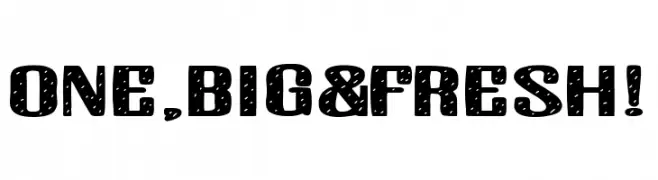
A bold, hand-drawn font with brush-like strokes and irregular edges.
A playful, decorative font with bold, outlined characters in a farm theme.
A playful, donut-inspired font with bold, rounded characters and circular cutouts.
A bold, textured decorative font with a rugged, hand-crafted look.
A playful, bubble-like font with dotted outlines and rounded characters.